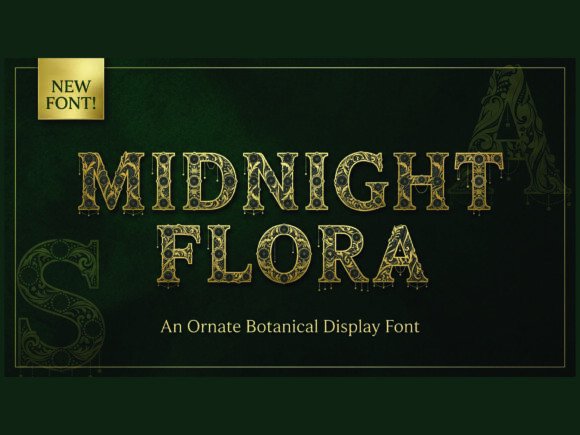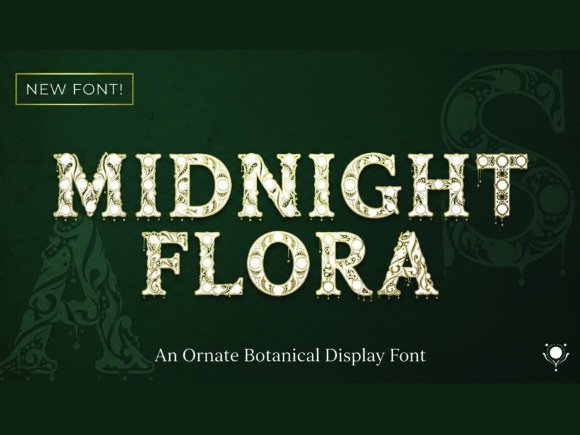
Introduction to Midnight Flora Font
As I sat hunched over my desk, staring at a blank page, I yearned for a spark of creativity to ignite my design project. It was then that I stumbled upon the Midnight Flora Font – a masterpiece that transported me to a world of dark romanticism. Its intricate details, delicate floral engravings, and gothic-inspired textures mesmerized me, and I knew I had found the perfect match for my project.
The Midnight Flora Font is a game-changer for designers, offering a level of sophistication and luxury that elevates any design to new heights. With its high-quality, illustrative nature, this font is a valuable resource for creatives working on projects that require a touch of the mystical and the magnificent.
Key Features of Midnight Flora Font
- High-quality, unique design ideal for creative projects requiring a touch of elegance and sophistication.
- Unique, intricate details and patterns make it an excellent choice for designers seeking a distinctive, high-quality font.
- Perfect for a wide range of creative projects, including typography, graphic design, and digital art.
Honest Review: Midnight Flora Font
I recently had the chance to work with the Midnight Flora Font and I must say it’s been a game-changer for my high-quality creative projects. This beautiful font is perfect for adding a touch of elegance to any design.
One of the things I love about the Midnight Flora Font is its high-quality design. The font is incredibly detailed, with intricate patterns and delicate lines that make it perfect for creating unique designs. The transparent background option also makes it easy to layer with other design elements.
Here are some of the things that work well with the Midnight Flora Font:
- Perfect for adding a touch of elegance to designs
- May not be suitable for bold or loud designs
- Some users may find the font a bit too delicate
- Limited character set, which may not be ideal for longer texts
Overall, I’m really impressed with the Midnight Flora Font and I would highly recommend it to anyone looking for a high-quality, creative font for their design projects. ⭐️⭐️⭐️⭐️⭐️
Common Use Cases for Midnight Flora Font
Midnight Flora Font is ideal for a variety of creative projects, including wedding invitations, birthday cards, and social media graphics. It’s also a great choice for designers looking for a high-quality, free download font with a transparent background.